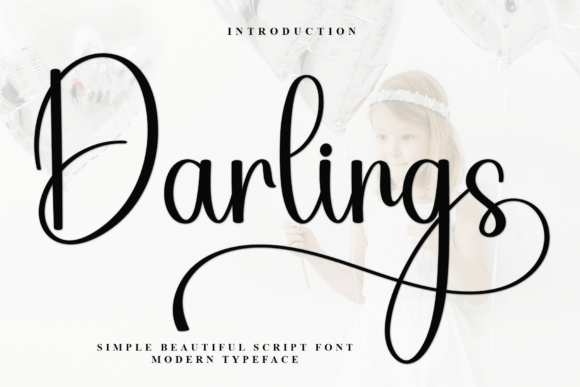
The Birth of a Beautiful Design: Introducing Darlings Font
Do you ever find yourself sitting at your desk, staring blankly at a blank page, waiting for inspiration to strike? For many designers, it’s a moment we’ve all been there. But what if that moment of clarity came in the form of a stunning new font? Enter Darlings Font, a beautiful and attractive typeface that’s about to revolutionize the way you approach design.
This gorgeous font is more than just a pretty face – it’s a tool that can elevate your work and make it stand out in a crowded market. With its soft touch and unique stroke, Darlings Font is perfect for designers looking to add a touch of elegance to their projects. Whether you’re working on a branding campaign, a packaging design, or a craft project, this font is sure to impress.
Darlings Font Key Features
- Font Family: Darlings Font is a unique script font designed for elegant and stylish typography.
- Character Count: The font contains a wide range of characters, including uppercase and lowercase letters, numbers, and punctuation marks.
- Unique Characteristics: Darlings Font features a distinctive, handwritten feel with flowing connections between letters, making it perfect for creative and artistic projects.
Darlings Font Review
I recently had the chance to work with the Darlings Font, and I have to say, it’s a unique and charming addition to any design project. Here are my thoughts on what works well and what doesn’t.
- Playful feel**: Darlings Font has a whimsical and playful feel that’s perfect for projects that need a touch of personality.
- Customization options**: The font offers a range of styles and weights, making it easy to find the perfect fit for your design.
- Legibility**: Despite its playful feel, the font is surprisingly easy to read, even at smaller sizes.
- Limited compatibility**: I found that the font didn’t render well in some older browsers or on certain devices, which could be a concern for projects that need to reach a wide audience.
- Not ideal for body text**: While the font is great for headlines and titles, it’s not the best choice for large blocks of body text, where readability is crucial.
Overall, I think Darlings Font is a great choice for projects that need a bit of flair and personality. Just be aware of its limitations and use it judiciously. With the right application, it can be a real showstopper.
Tips for Getting the Most Out of Darlings Font
Use Darlings Font for creating elegant and sophisticated designs, such as:
- Brand logos and marketing materials.
- High-end product packaging and labels.
Remember to pair Darlings Font with complementary colors and typography to achieve a polished look.
Alternatives to Darlings Font
Great Vibes is a beautiful, elegant script font perfect for creating a sense of luxury and sophistication. It is ideal for use in wedding invitations, branding, and other high-end design projects.
Compared to Darlings Font, Great Vibes is more refined and elegant, with a more subtle flair to its letterforms. It is also more versatile, working well in a variety of contexts and at different font sizes.
Carolyna Pro is a modern, elegant script font that is perfect for creating a sense of glamour and sophistication. It is ideal for use in fashion branding, packaging, and other design projects that require a touch of elegance.
Compared to Darlings Font, Carolyna Pro is more modern and sleek, with a more geometric flair to its letterforms. It is also more versatile, working well in a variety of contexts and at different font sizes.